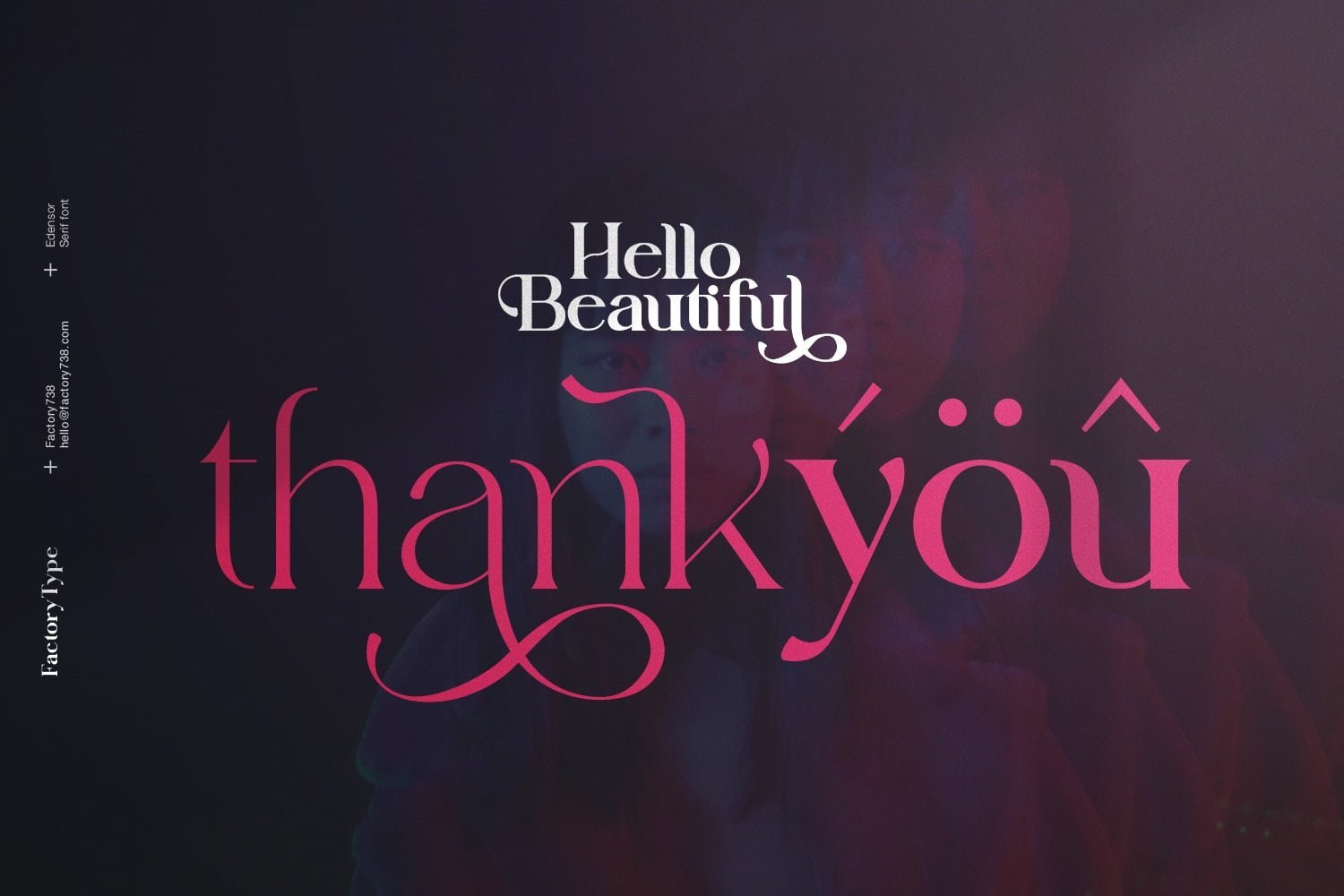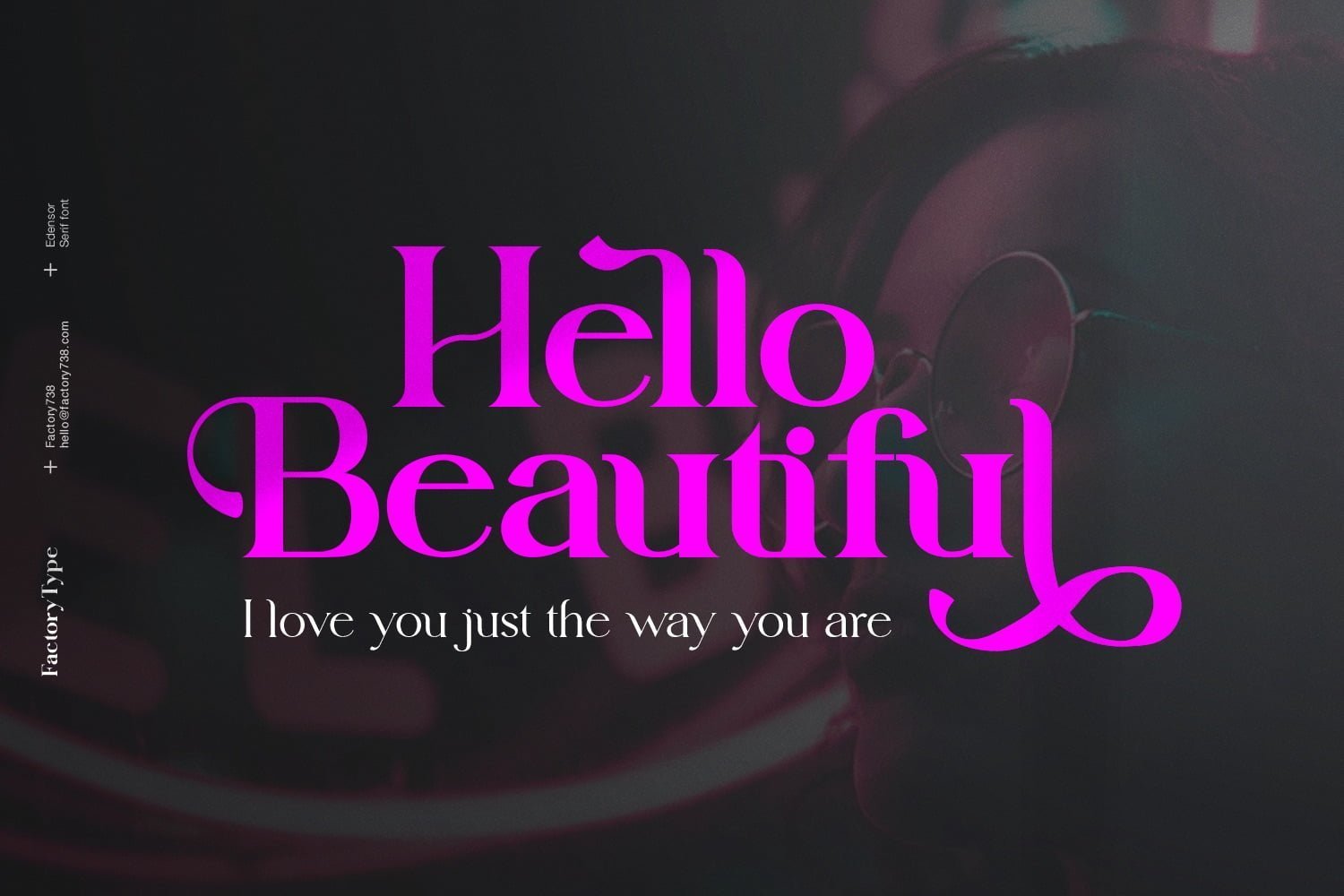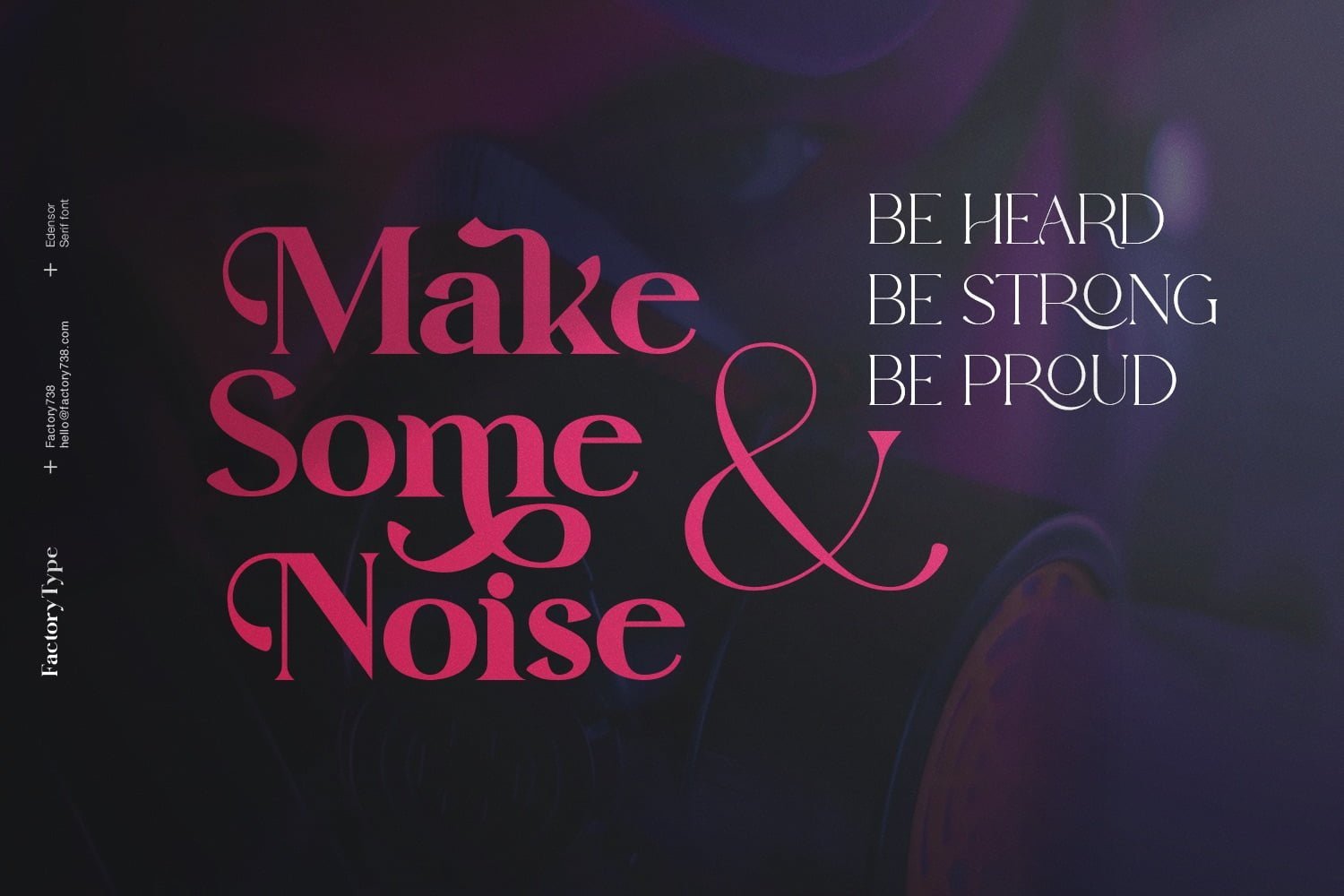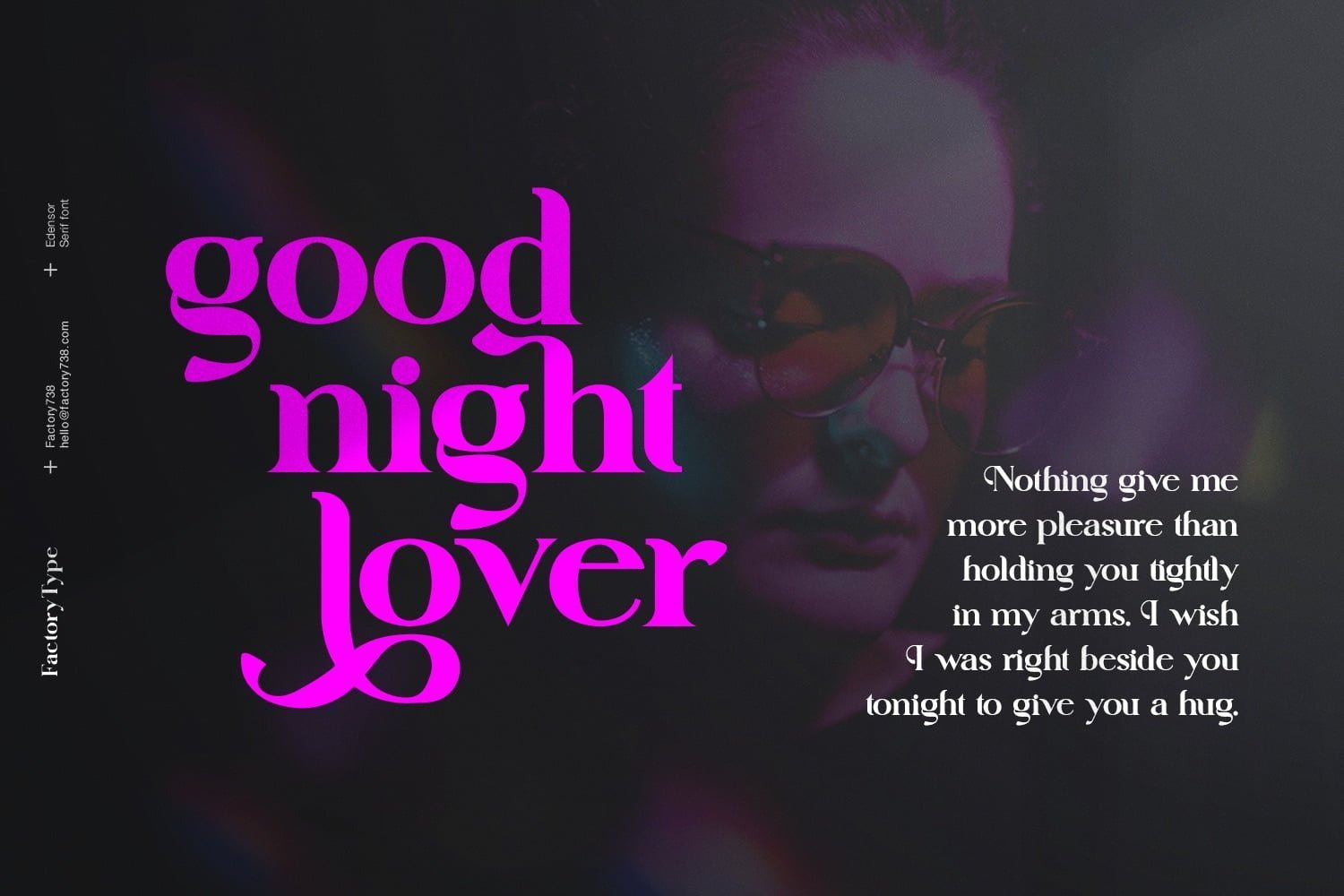
Edensor is a playful yet romantic serif. It teases your eyes with its curves yet still able to maintain its classy composure, offering a variety of weights and choices that will help you find the right typeface for the right project. With ligatures and alternate letters, there’s a font that suits any driving ambition.
- 5 Weights (Light, Regular, Semibold, Bold, Black)
- 2 Styles (Regular and Italic)
- Stylistic Ligatures and Alternate Glyphs